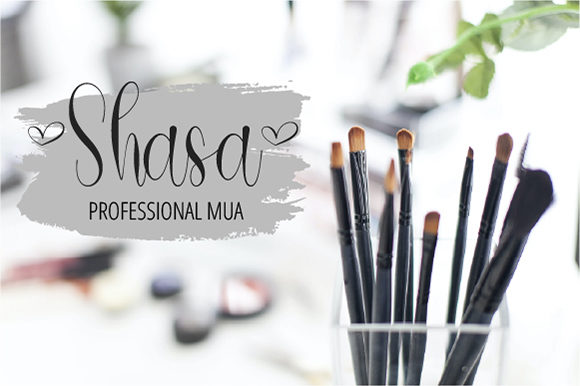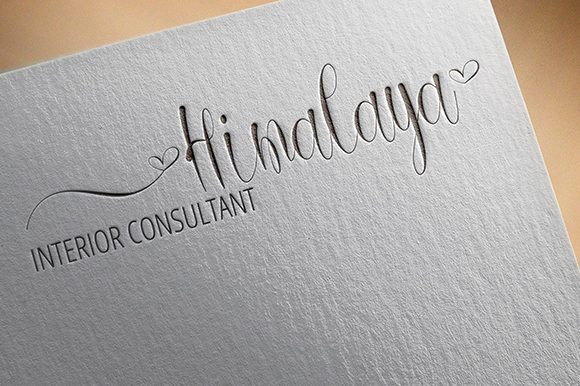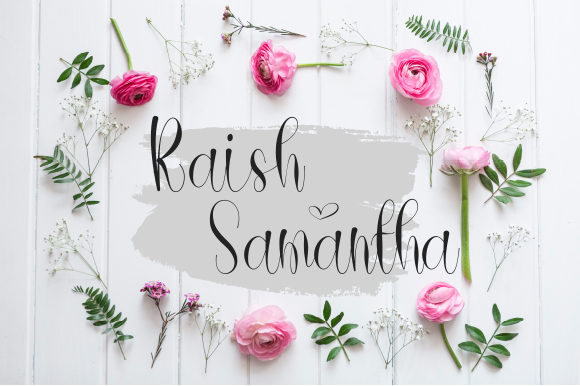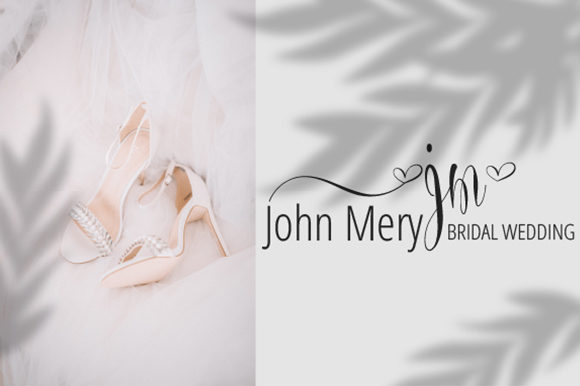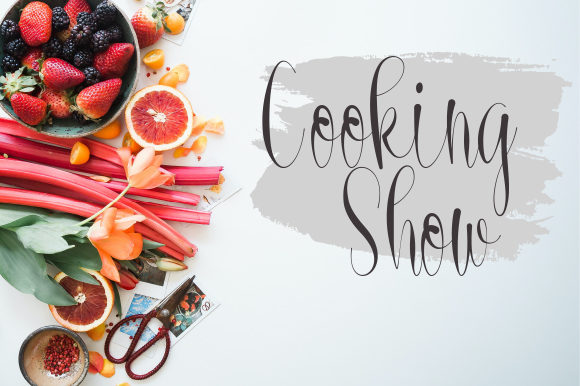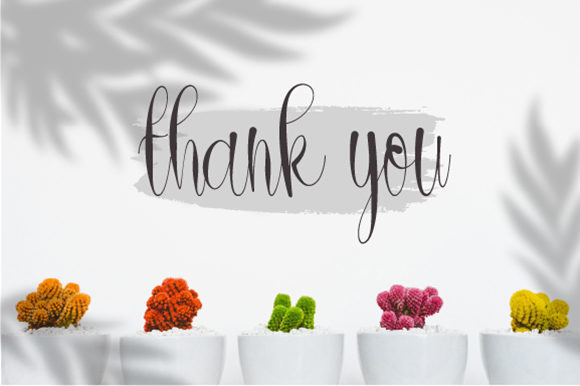
The Perfect Touch: Unveiling the Timeless Abiali Font
Have you ever sat down with a pen and paper, and as the ink flows onto the page, a beautiful idea suddenly comes to life? For designers, those moments of creative serendipity are what make the job truly magical. And when you need to add a personal touch to your designs, there’s one font that stands out from the rest: the Abiali Font.
Abiali Font is a delicate and timeless handwritten font that brings a sense of elegance and sophistication to any design. Whether it’s a wedding invitation, a thank you card, or a business logo, Abiali Font adds a touch of warmth and personality that’s hard to replicate with more formal fonts. For designers, the Abiali Font is a valuable tool that can elevate their designs and make them truly unforgettable.
- Unique Characteristics: Abiali Font features a unique blend of modern and traditional design elements, with intricate details and subtle flair, making it perfect for creative and artistic projects.
Abiali Font Review
Overall, I’m impressed with the Abiali Font. It’s a beautiful, elegant script font that’s perfect for adding a touch of sophistication to your designs. ✨ The font’s flowing lines and cursive strokes make it ideal for headings, quotes, and other text that needs a bit of flair.
- ✨ Elegant and sophisticated design: Abiali Font is perfect for luxury brands, weddings, and other high-end designs.
- ✨ Versatile: The font works well for both digital and print designs.
- ✨ Easy to read: Despite its cursive design, Abiali Font is still easy to read, making it a great choice for body text.
Limitsations:
- ⚠️ Limited character set: The font only includes uppercase and lowercase letters, numbers, and some punctuation marks.
- ⚠️ Not suitable for fast-paced or action-oriented designs: Abiali Font’s flowing lines and cursive strokes make it less suitable for designs that require a lot of speed or energy.
Overall Impression:
I’d definitely recommend Abiali Font for designers looking to add a touch of elegance to their designs. While it has some limitations, its versatility and beautiful design make it a great choice for a wide range of projects.
Tips for Getting the Most Out of Abiali Font
For optimal results, use Abiali font in headings and titles to create visual hierarchy. Combine it with other fonts for a unique and eye-catching design. Experiment with different font sizes and styles to achieve the desired look.
Abiali font is perfect for creative projects, such as:
– Designing book covers and magazines
– Creating social media graphics and advertisements
– Developing branding materials and logos
– Crafting unique and elegant typography